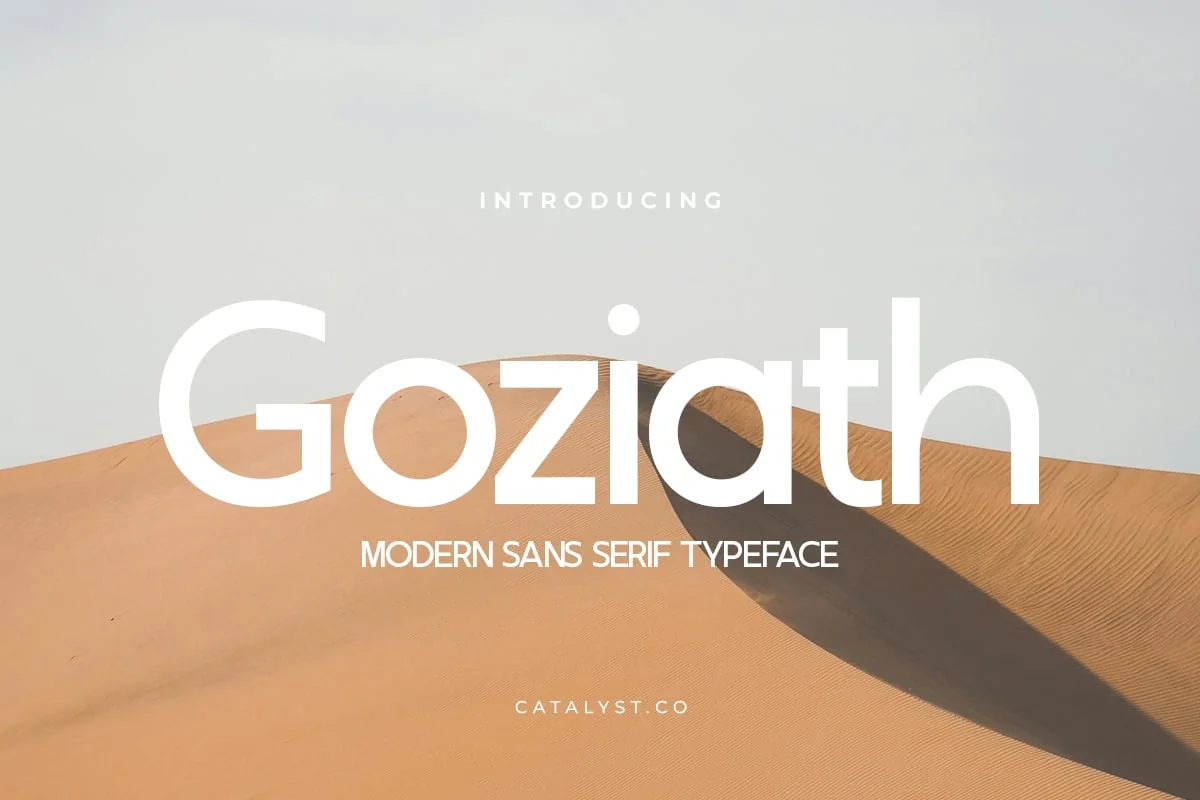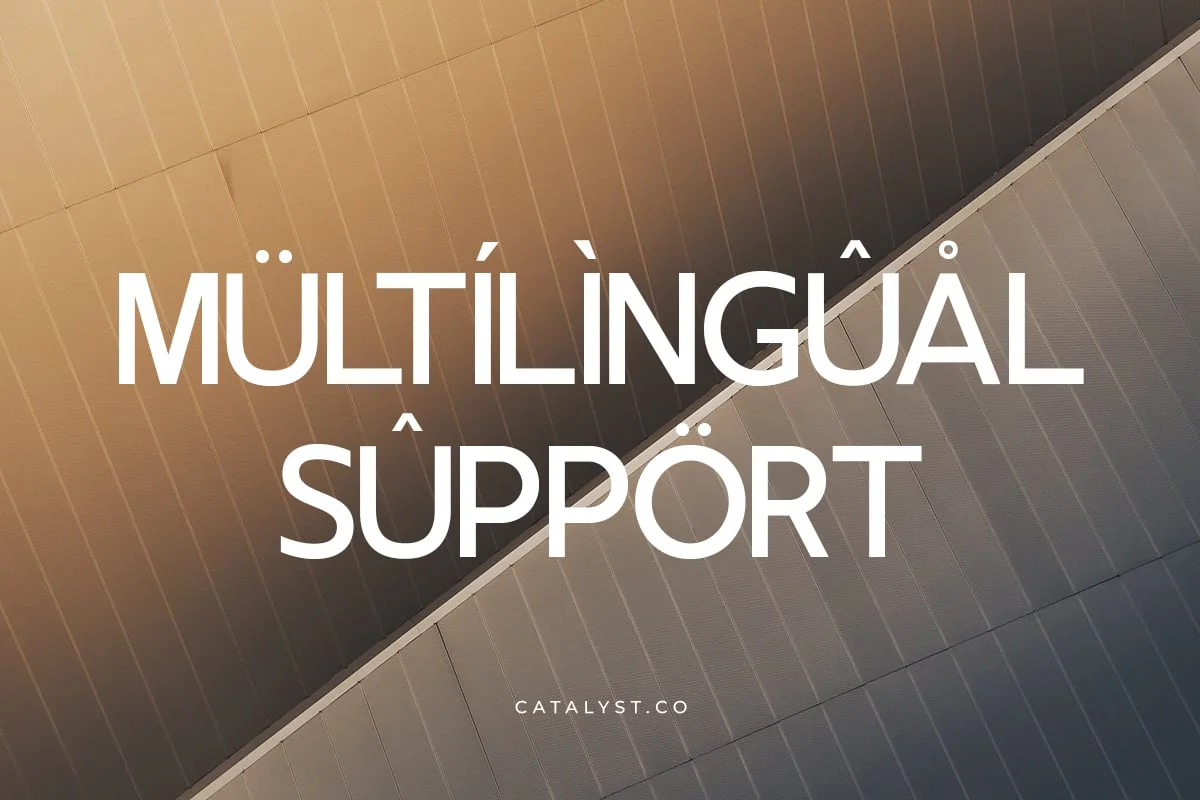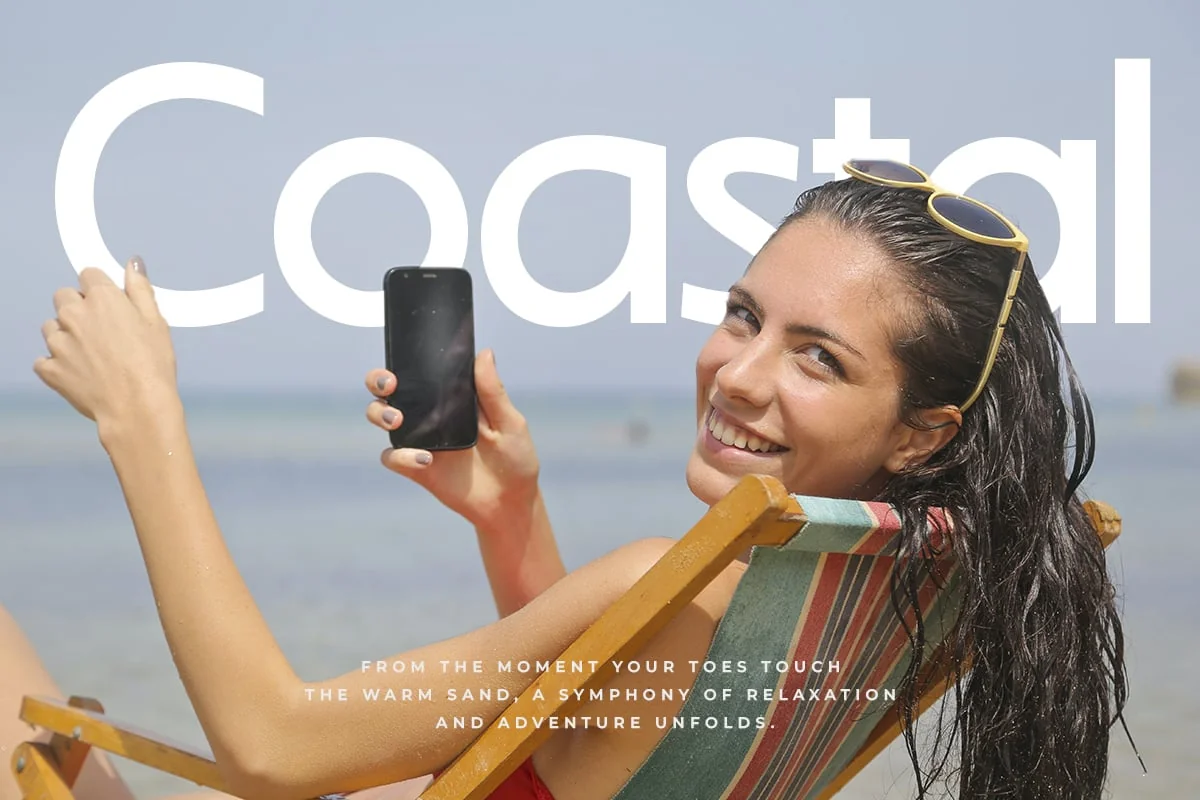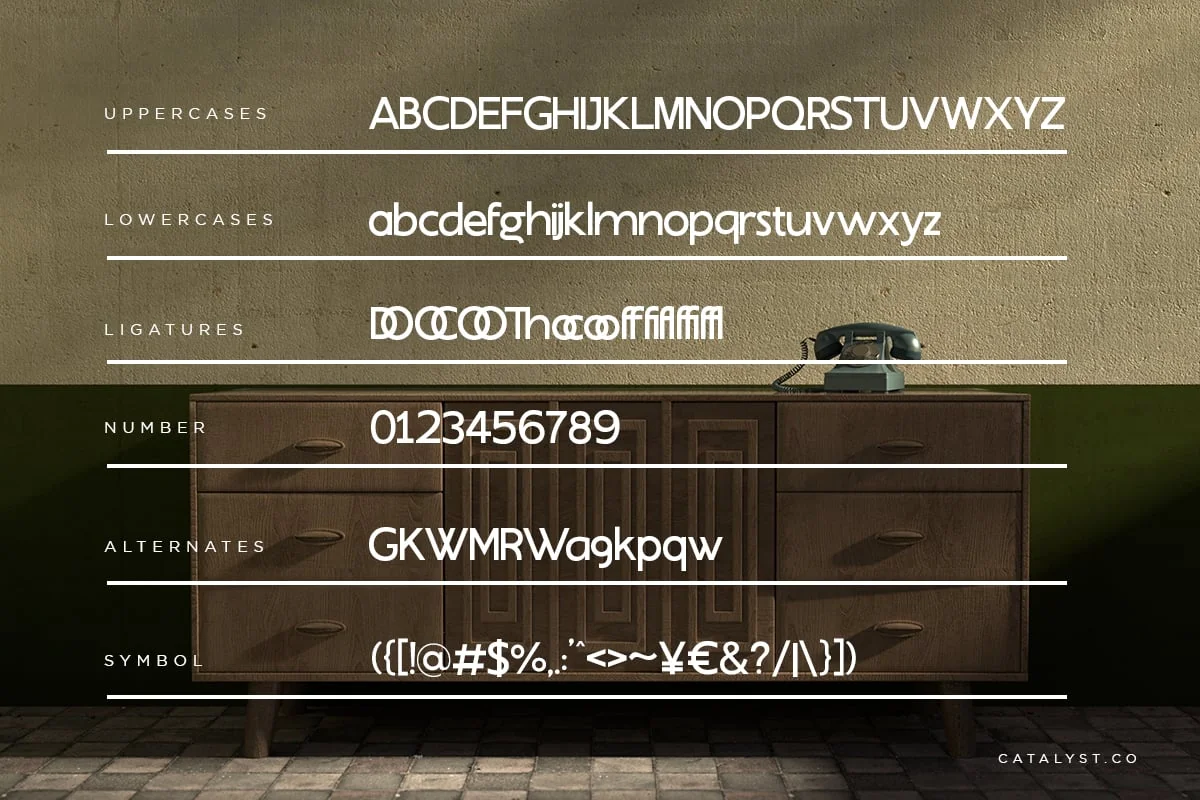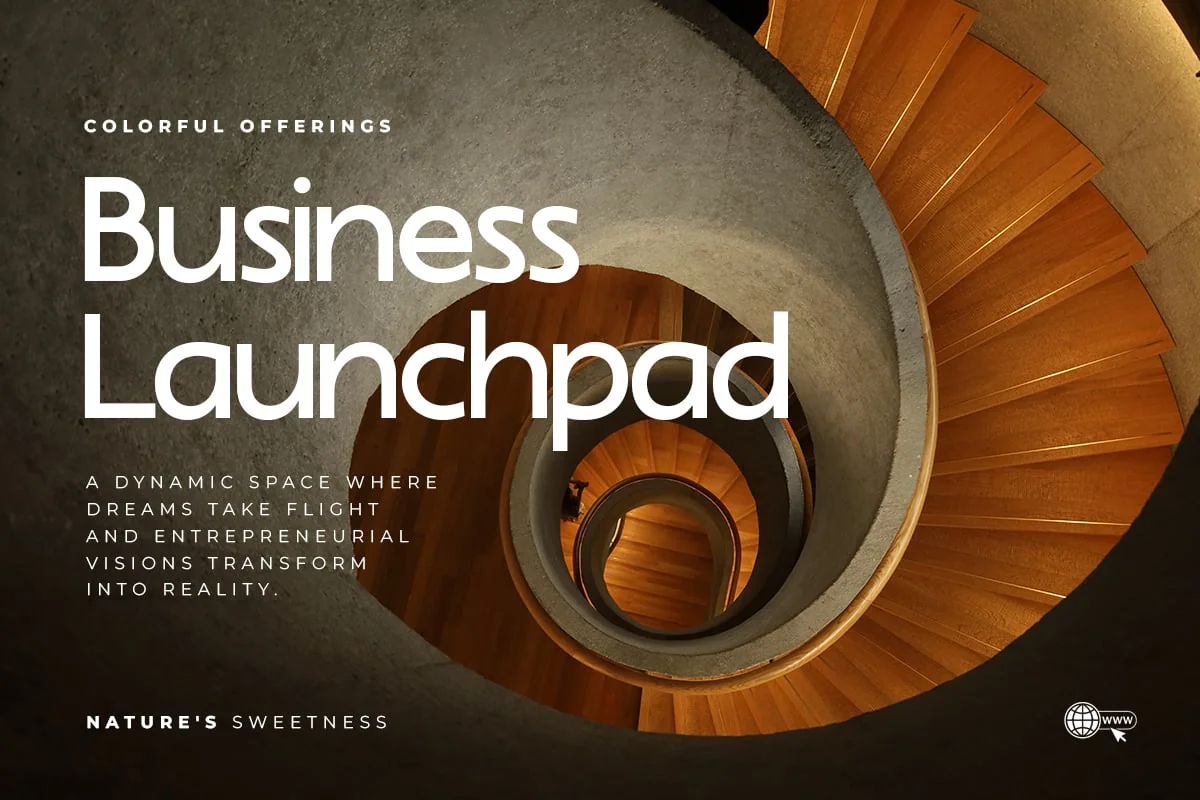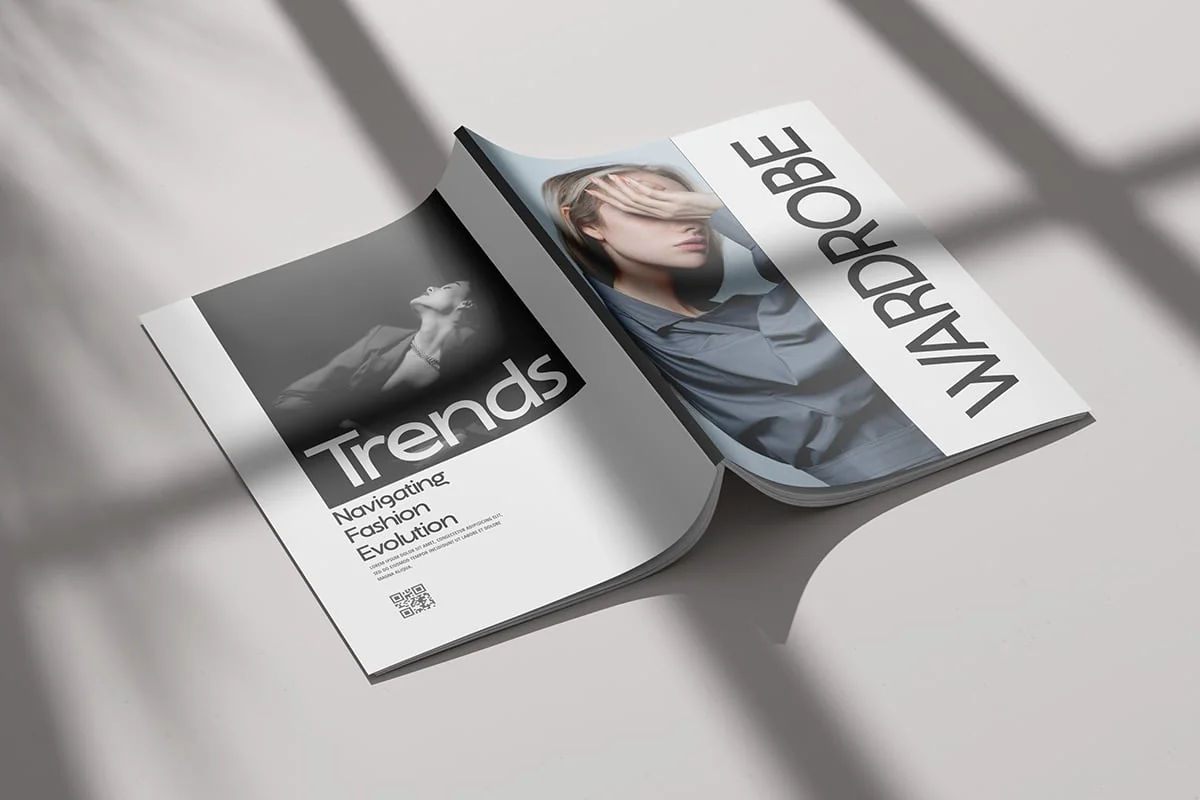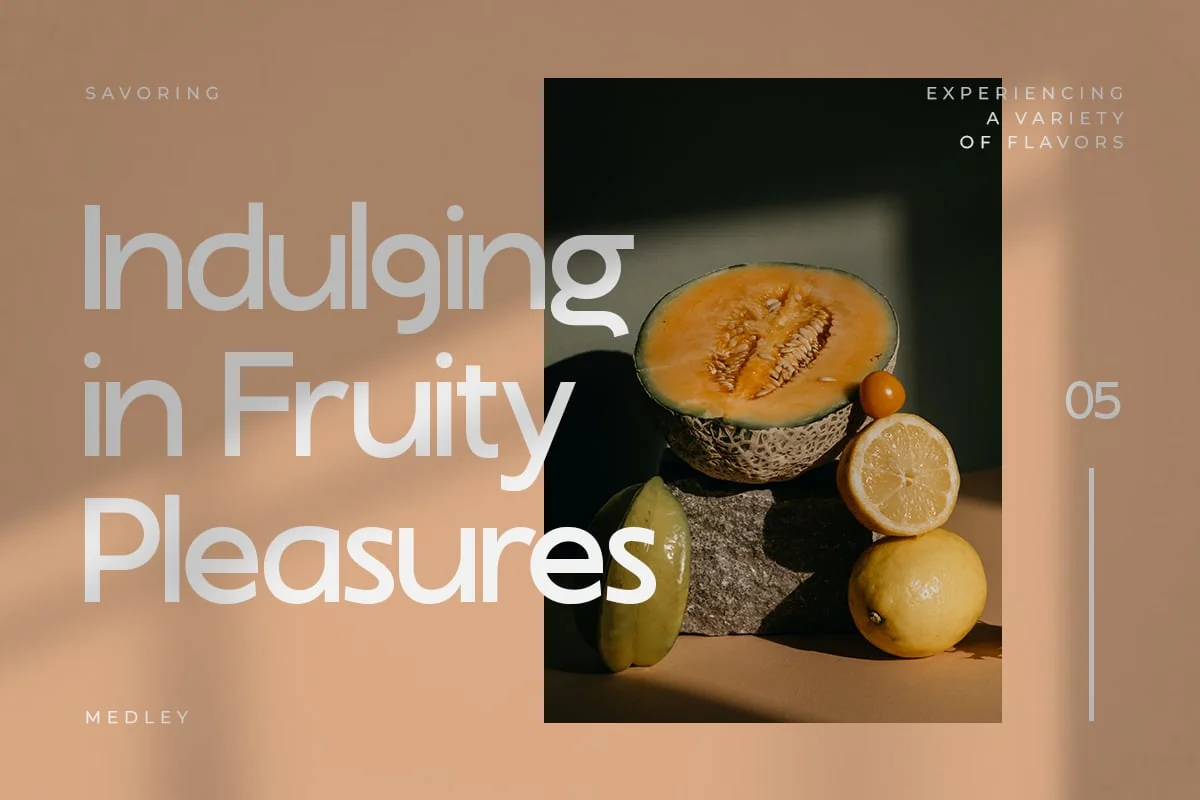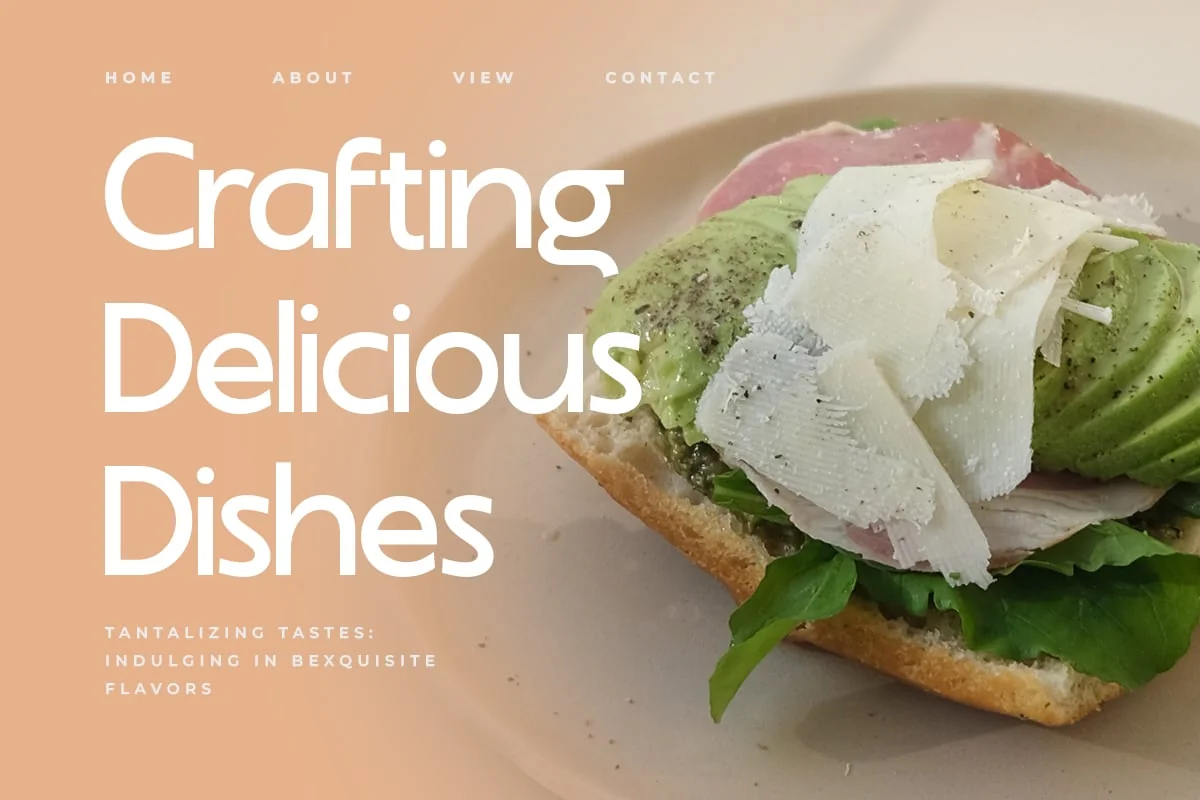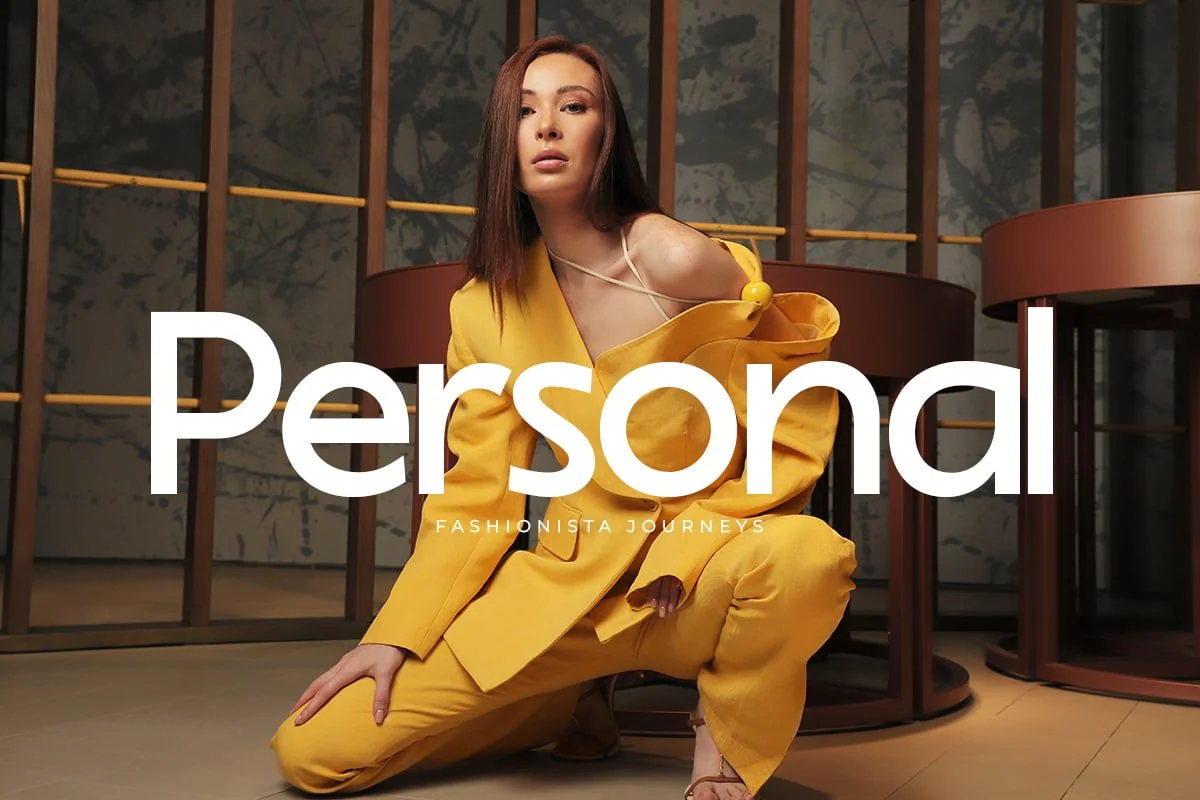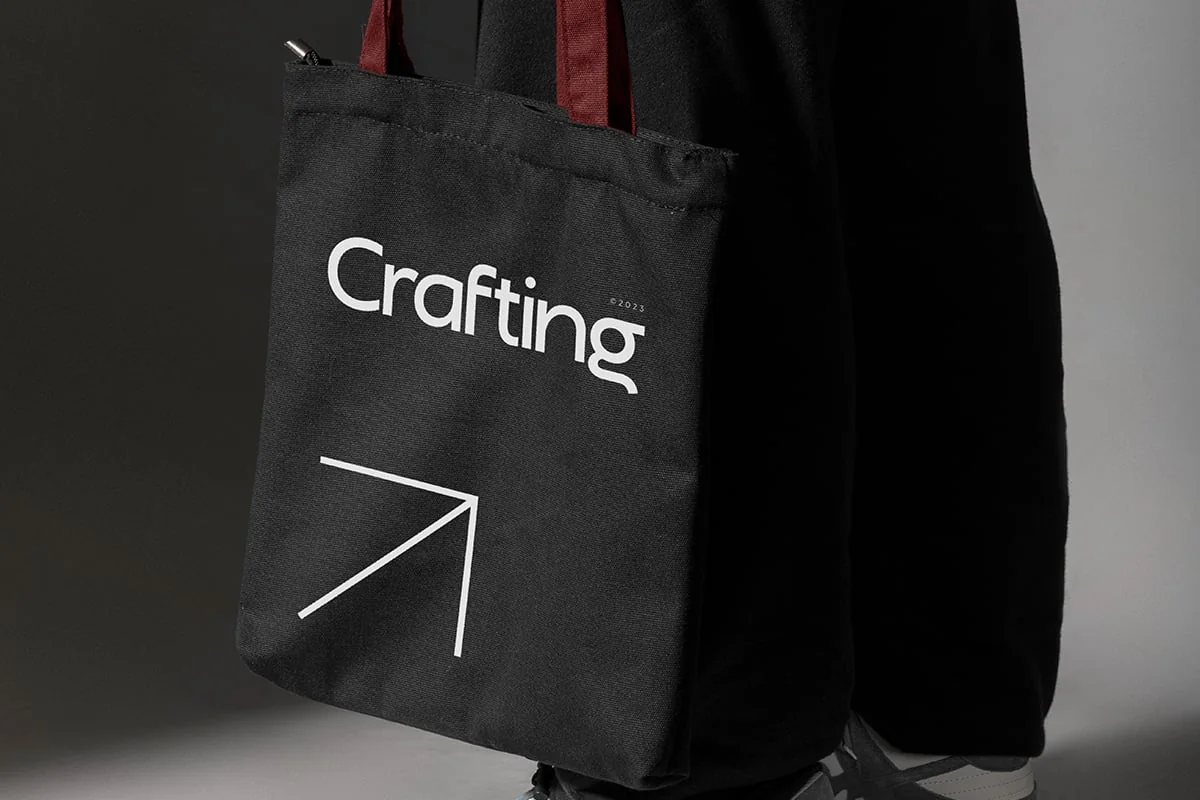
Goziath Modern Sans Serif Font
Goziath Modern Sans Serif Font typeface excellent used for the manufacture quote text, logotype, header magazine, and many more.
- Ligatures & Alternate